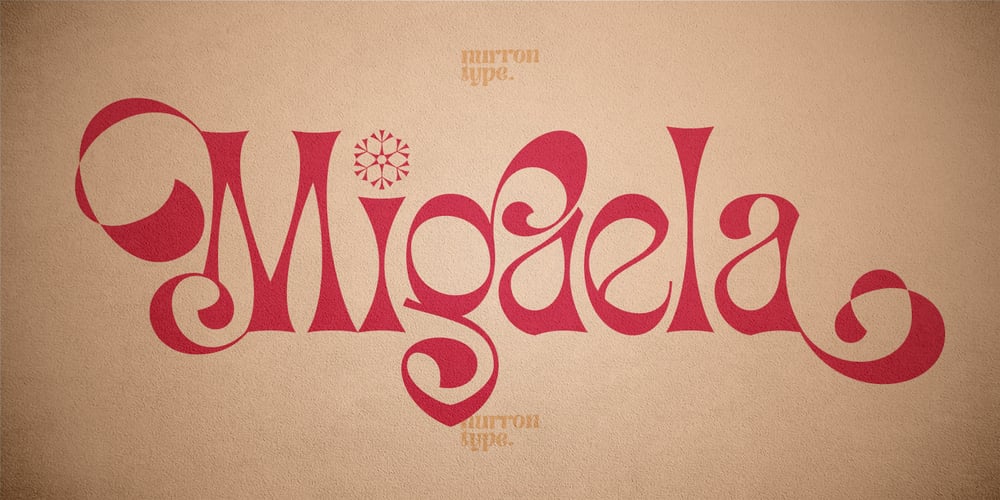
Migaela Font Family was designed by Nurron Shodiqin and published by Nurrontype. Migaela contains 6 styles and family package options. Hi, I’m Migaela. I’m optimistic, inspiring and expressive typeface. My friend told me I’m cheerful, positive and charming. My designer made me with three optional style, Regular, Overlap and Smooth (rounded), each with oblique version. It has unique stylistic and ornament. Don’t you see that lowercase I with snow flake. It’s so cute isn’t it. Before I forget, kindly look my ligature, I know you like it. Buy me know, let me works together in your Christmas project, Holiday card, New Years event, and of course your next Valentine project.